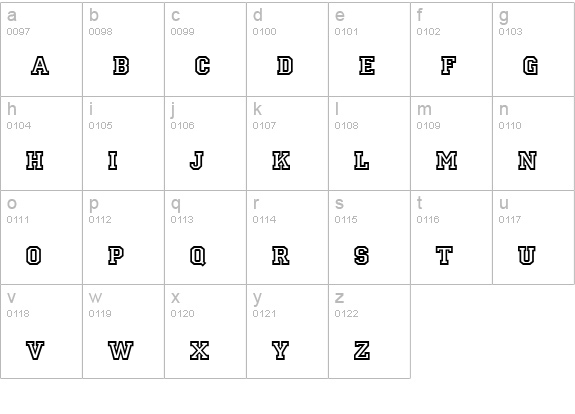
Introducing the exquisite and captivating Letterman font, a perfect blend of elegance and modernity. This font exudes a sense of sophistication, making it an ideal choice for a wide range of design projects. With its sleek and refined letterforms, Letterman effortlessly adds a touch of class to any creative endeavor. Letterman is not only visually stunning but also extremely versatile. Its clean lines and balanced proportions make it suitable for various design purposes, from branding and logo design to editorial layouts and website headers. Whether you're looking to create an eye-catching headline or a stylish body of text, Letterman will elevate your project to new heights. What sets Letterman apart is its captivating charm, which stems from its meticulous attention to detail. Each letter has been carefully crafted to ensure perfect harmony, resulting in a seamless and cohesive typeface. Its timeless appeal and timeless appeal make it a font that will stand the test of time. And the best part? Letterman is available for free! Yes, you read that right. This remarkable font can be freely downloaded at FontsMarket.com, making it accessible to all designers and enthusiasts. So why wait? Enhance your designs today with the extraordinary Letterman font and watch as your creations come to life with unparalleled elegance and style.